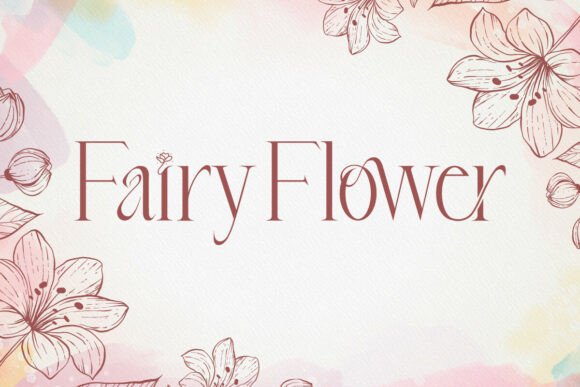
Fairyflower Font: Elevate Your Designs with Elegance and Whimsy
In the world of typography, few fonts capture the essence of elegance and charm as beautifully as Fairyflower Font. This serif display font is designed to bring a touch of grace and whimsy to your designs, making it perfect for a wide range of creative projects. From blogs and brand logos to brochures, corporate signage, and greeting cards, Fairyflower Font is a versatile choice that can elevate your designs to new heights.
A Font that Exudes Elegance and Charm
Fairyflower Font is characterized by its stylish ligatures, which add a refined personality to any design. The font features a full set of uppercase and lowercase characters, numerals, punctuation, symbols, and beautiful ligatures, making it a comprehensive and versatile choice for designers. The elegant and charming nature of Fairyflower Font makes it particularly well-suited for use in fashion, floristry, cosmetics, gardening, and special event branding.
Key Features of Fairyflower Font
- Stylish Ligatures: Fairyflower Font includes beautiful ligatures that bring a touch of elegance and whimsy to your designs.
- Comprehensive Character Set: The font features a full set of uppercase and lowercase characters, numerals, punctuation, symbols, and ligatures.
- Multi-Language Support: Fairyflower Font supports multiple languages, making it a great choice for designers working on international projects.
Perfect for a Wide Range of Design Applications
Why Choose Fairyflower Font?
There are many reasons why Fairyflower Font is a great choice for designers. Some of the key benefits of using this font include:
- Elegance and Charm: Fairyflower Font exudes elegance and charm, making it perfect for designers who want to add a touch of sophistication to their designs.
- Versatility: The font is versatile and can be used in a wide range of design applications.
- Multi-Language Support: Fairyflower Font supports multiple languages, making it a great choice for designers working on international projects.
In conclusion, Fairyflower Font is a beautiful and versatile serif display font that can add a touch of elegance and whimsy to your designs. With its stylish ligatures, comprehensive character set, and multi-language support, this font is perfect for a wide range of design applications. Whether you’re designing a blog, brand logo, brochure, or greeting card, Fairyflower Font is a great choice. Its ease of use, cross-platform compatibility, and PUA encoding make it a convenient and practical choice for designers. So why wait? Download Fairyflower Font today and elevate your designs to new heights!